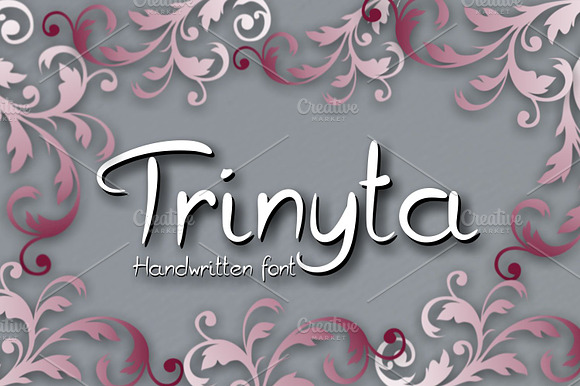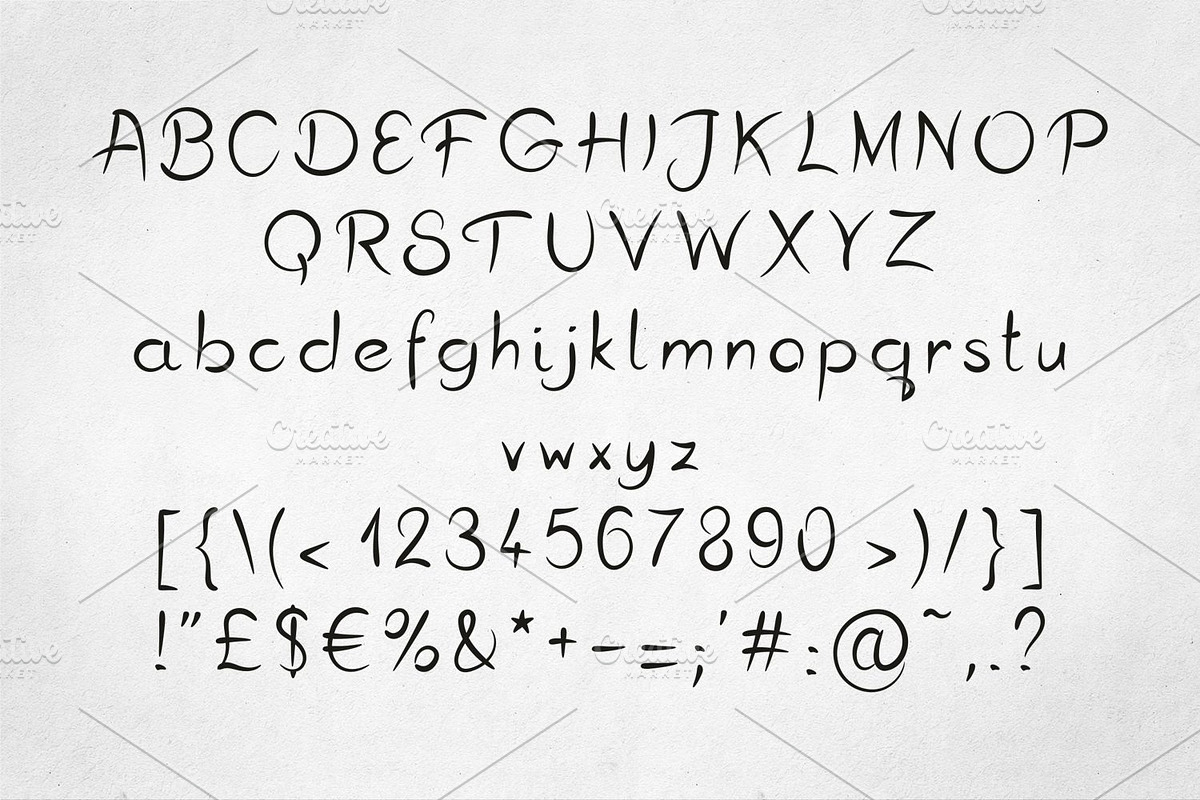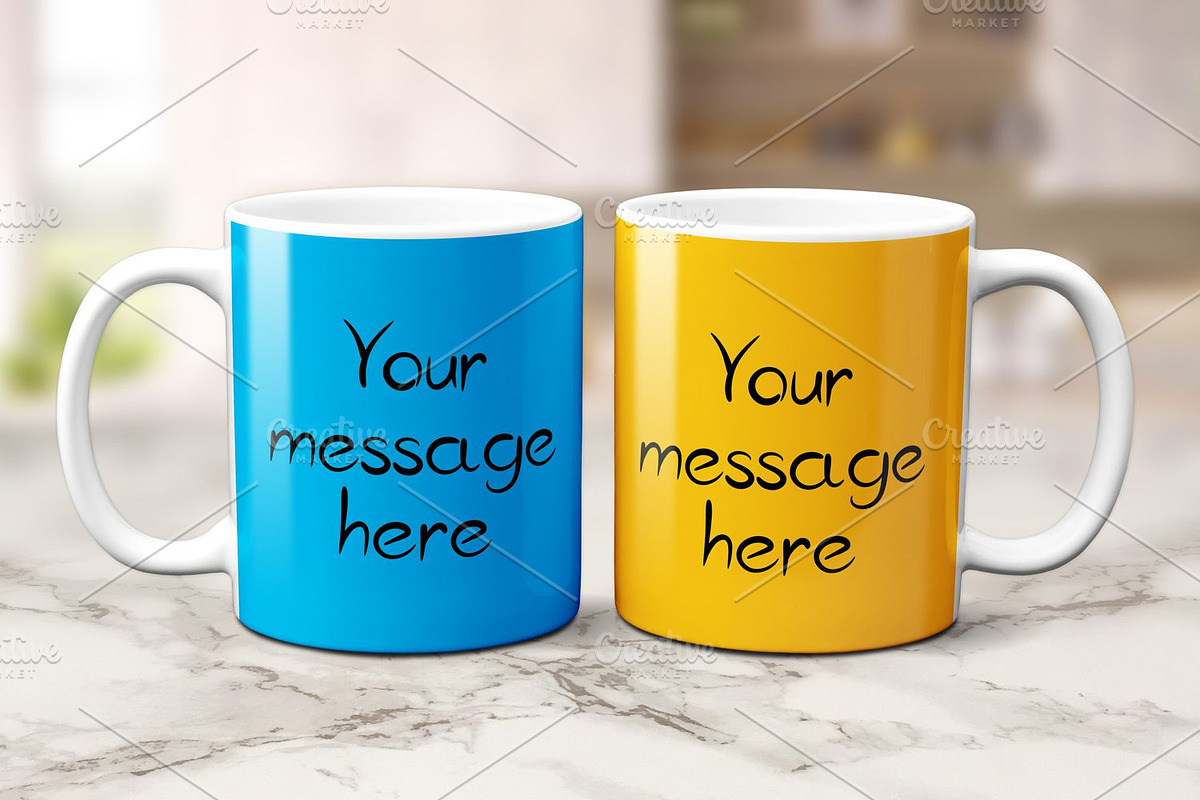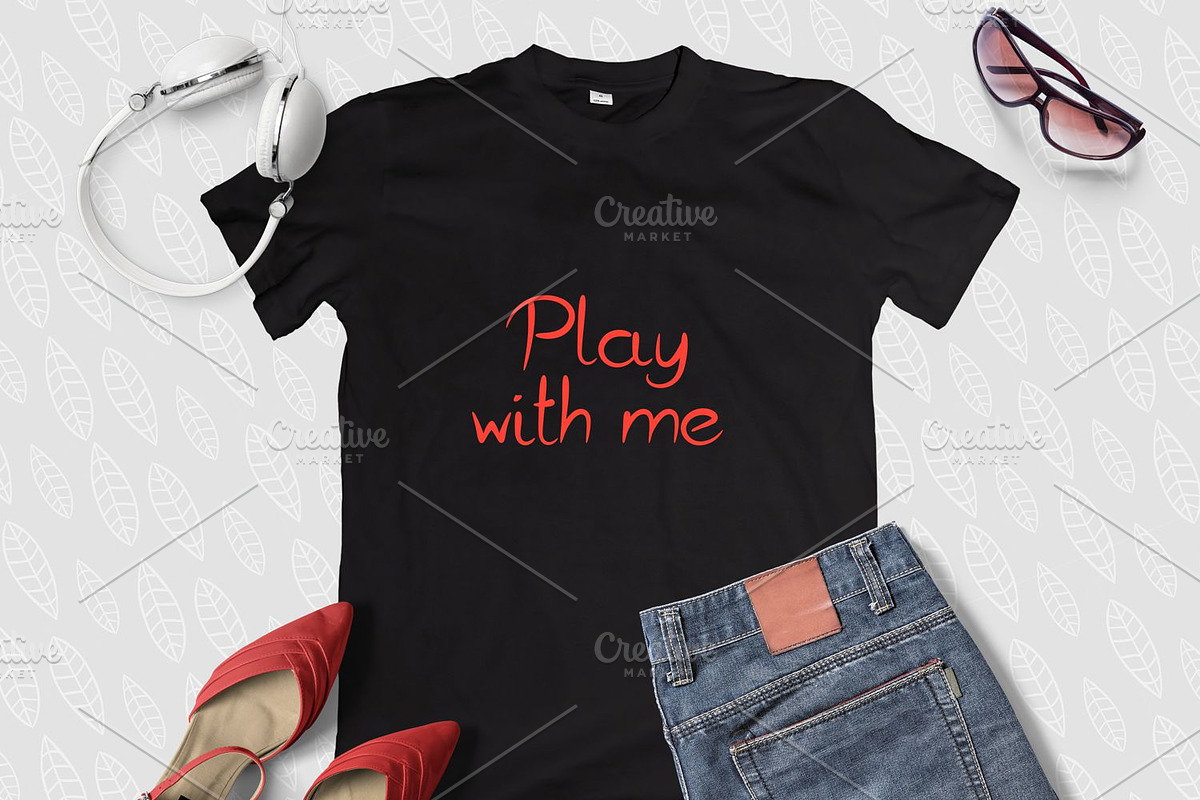
Trinyta
- Trinyta is ideal for logos, branding, packages and more.
Why Trinyta is worth a look
Trinyta by Digital Typeface Studio fits naturally into Branding, posters, packaging, typography.